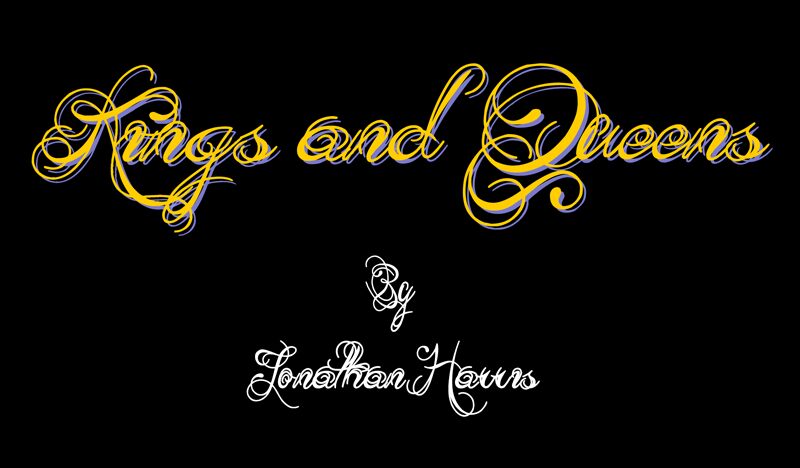
Kings and Queens, credited to TattooWoo, is a free calligraphic script shaped by extravagant swashes, delicate hairlines, broad downstrokes, and dramatic changes in stroke width. Long loops turn the lettering into dense ornament.
Ceremony, romance, and theatrical glamour make it a natural fit for ceremonial wedding invitations, music posters, and elaborate custom tattoo artwork. On perfume packaging or boutique branding, the flourishes can become part of an emblem, giving a product identity the richness and distinction of ornate custom-drawn lettering.